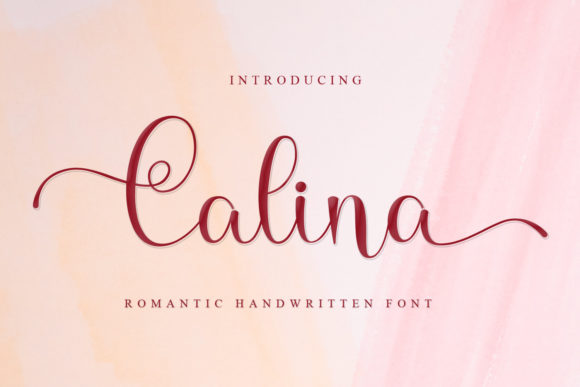
The Calina Font: A Charming and Elegant Addition to Your Design Arsenal
I’ll never forget the time I was working on a wedding invitation project, and my client asked me to create a custom design that exuded elegance and sophistication. As I scrolled through my font library, I stumbled upon the Calina font, and it instantly caught my eye. Its charming and elegant vibe was exactly what I needed to bring my design to life. In this article, I’ll share my experience with the Calina font, its features, and how to make the most of it in your designs.
A Personal Review of Calina Font
As a designer, I’m always on the lookout for fonts that can elevate my designs and make them stand out. Here’s what I love about the Calina font:
• ✨ Elegant and charming aesthetic that’s perfect for wedding invitations, greeting cards, and other custom designs
• ✅ PUA encoded, making it easy to access glyphs and swashes
• 🎨 Highly versatile and can be used for a variety of design projects, from logos to business cards
While the Calina font is impressive, it’s not without its quirks. Here are a few things to keep in mind:
• 🤔 Some users may find the font a bit too ornate for certain design projects
• ⚠️ May require some experimentation to get the desired look, especially for beginners
The Story Behind Calina Font
The Calina font was designed with the intention of creating a elegant and charming font that would be perfect for custom designs. The designer aimed to create a font that would be versatile and easy to use, with a range of OpenType features that would make it suitable for a variety of design projects.
What is the Calina font best used for? The Calina font is best used for custom designs, such as wedding invitations, greeting cards, logos, and business cards.
Is the Calina font PUA encoded? Yes, the Calina font is PUA encoded, making it easy to access glyphs and swashes.
Is the Calina font easy to use? Yes, the Calina font is relatively easy to use, but may require some experimentation to get the desired look.